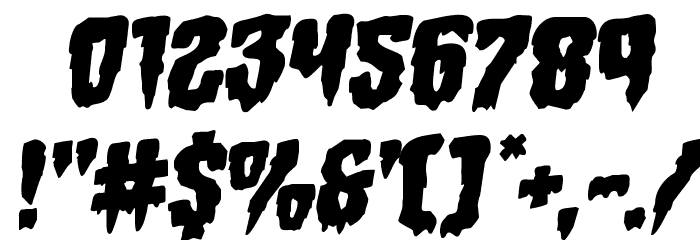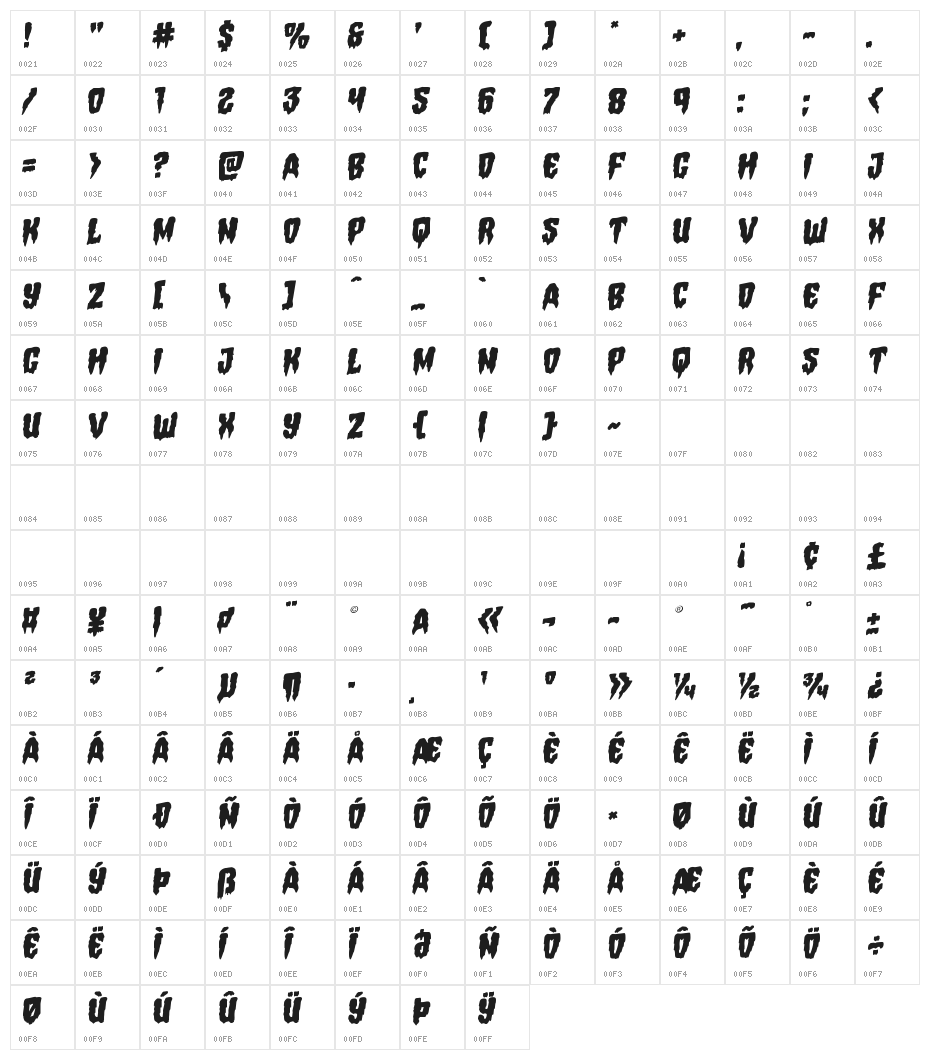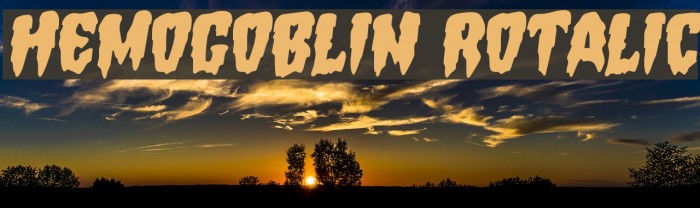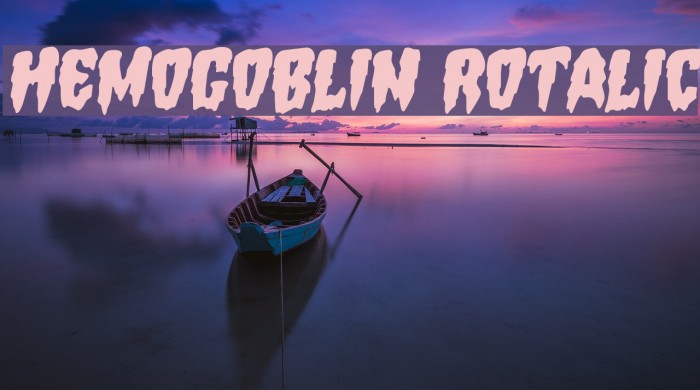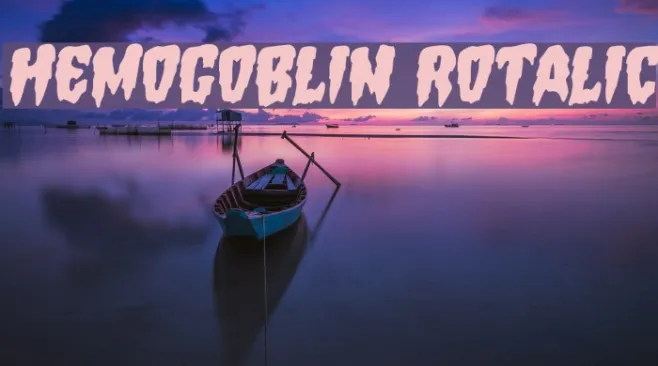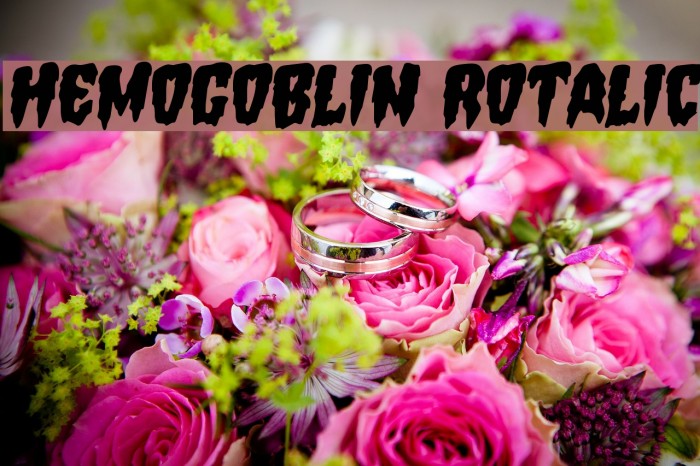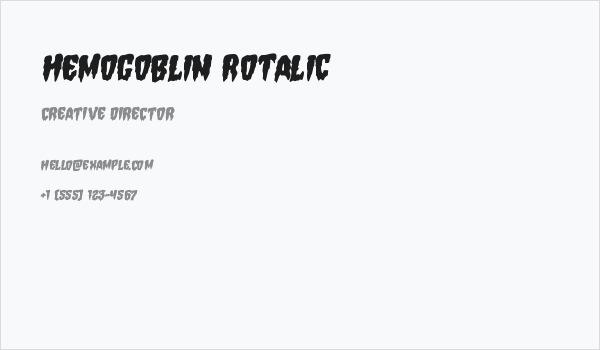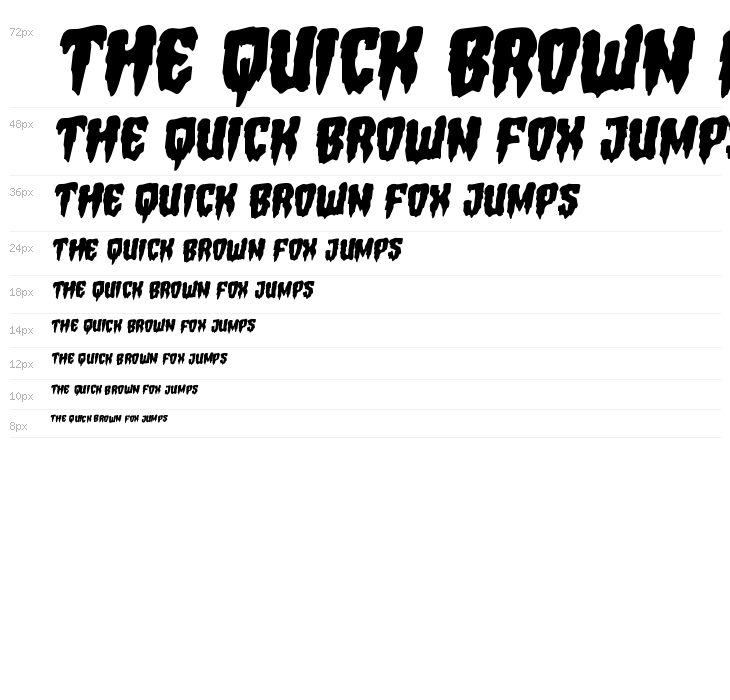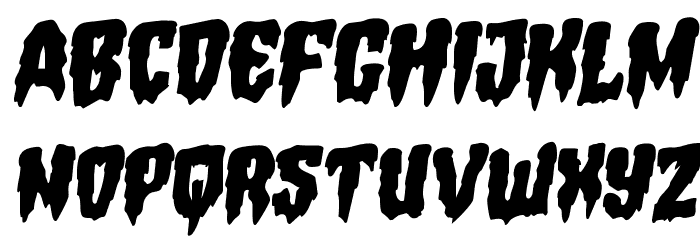
Hemogoblin Rotalic Font
Hemogoblin Rotalic Description
This font features a bold, jagged style that evokes a sense of horror and drama. The characters are heavily stylized with sharp edges and irregular shapes, resembling dripping or torn elements. This design choice gives it a unique, eye-catching appearance, perfect for creating a spooky or intense atmosphere. The uppercase and lowercase letters maintain a consistent theme, with numbers and special characters following suit. The overall impression is one of boldness and intensity, making it ideal for thematic projects.
| Proposed Projects | Ideal for Halloween-themed designs, horror movie posters, spooky event invitations, and dramatic graphic novels. |